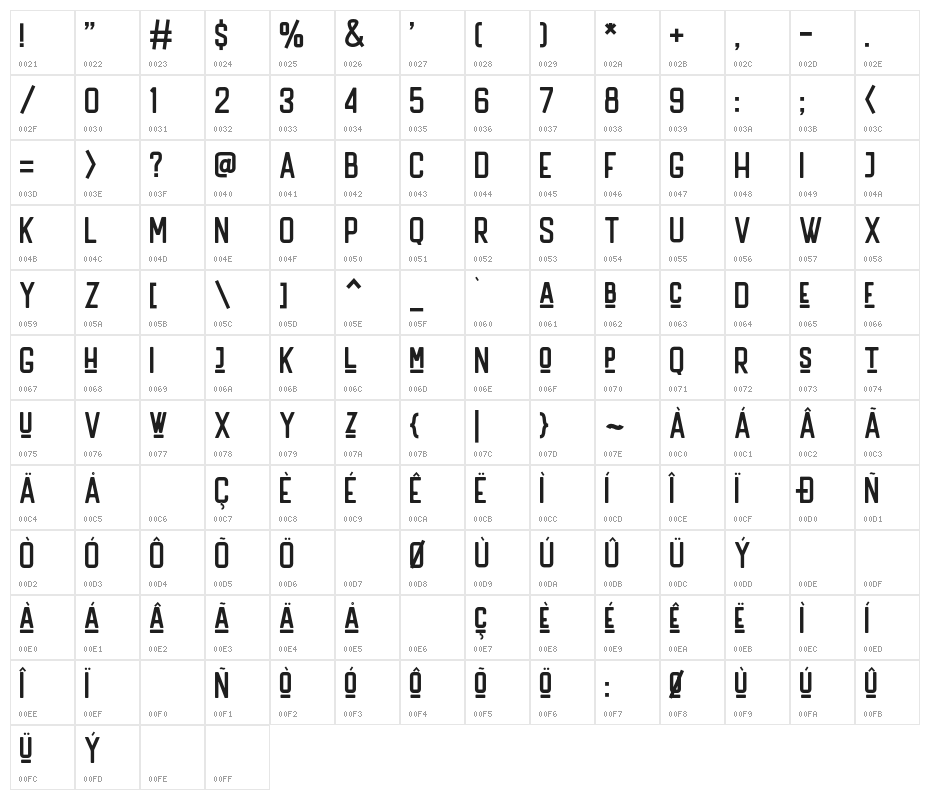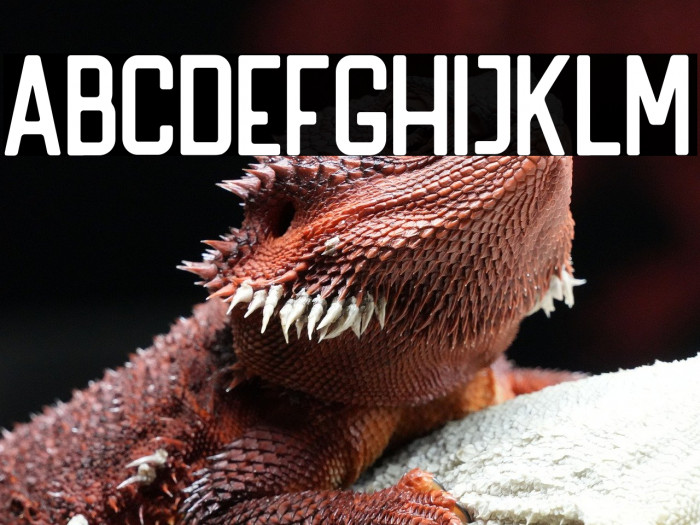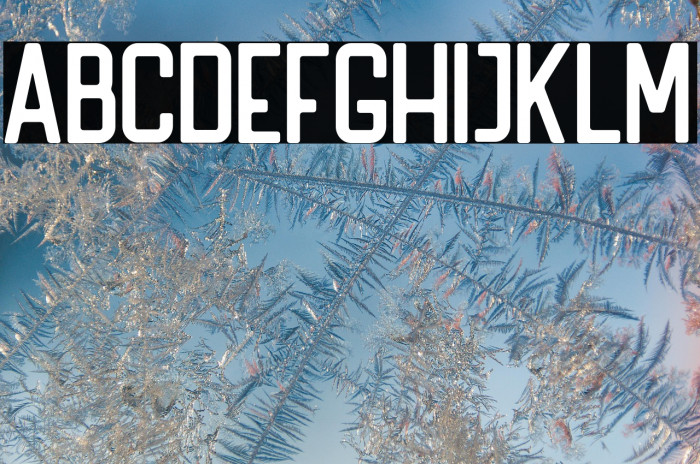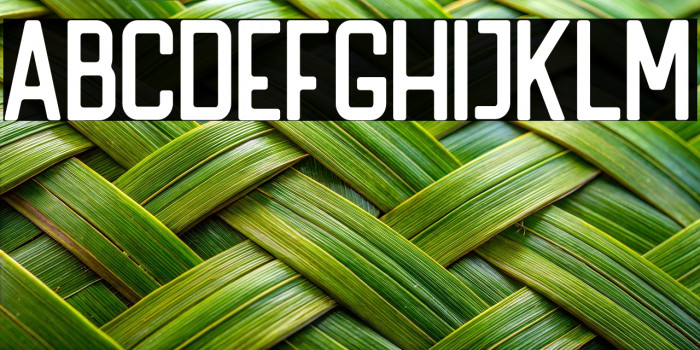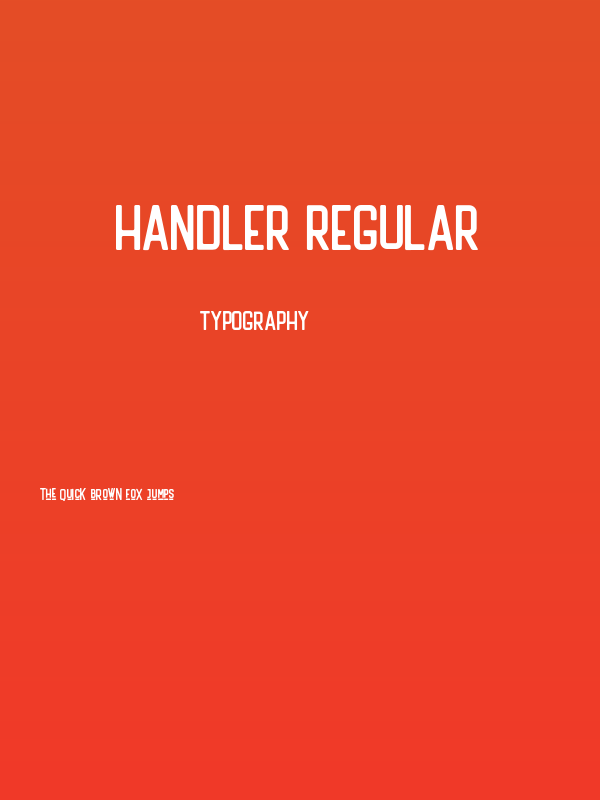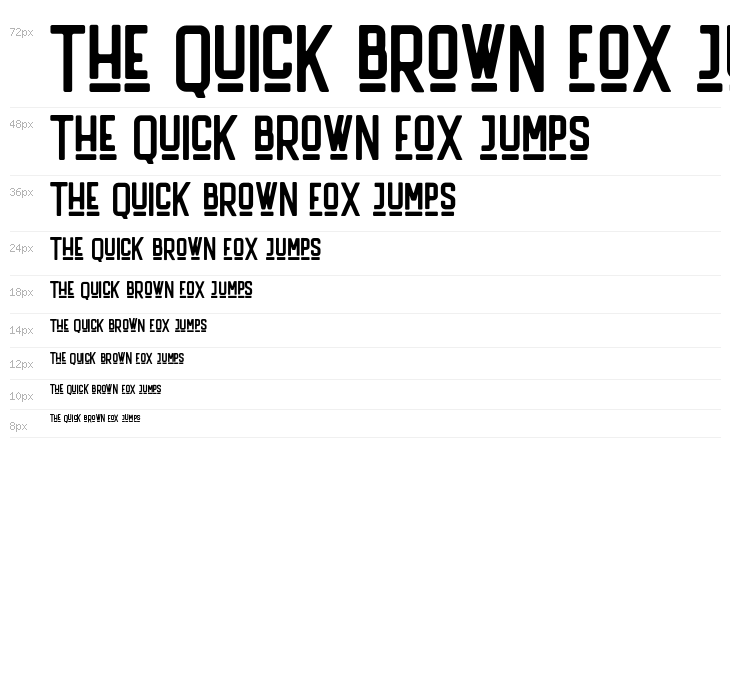
HANDLER Regular Font
HANDLER Regular Description
This font features a bold and structured design with a modern, geometric aesthetic. The characters are uniformly thick, providing a strong presence on the page. The uppercase letters are particularly striking, with a consistent height and width that creates a cohesive look. The lowercase letters maintain this uniformity, offering a seamless transition between cases. Numbers and special characters are designed with the same boldness, ensuring readability and impact. The overall style is clean and contemporary, making it suitable for various design applications.
| Proposed Projects | Ideal for branding, posters, headlines, and digital media where a strong, modern look is desired. |